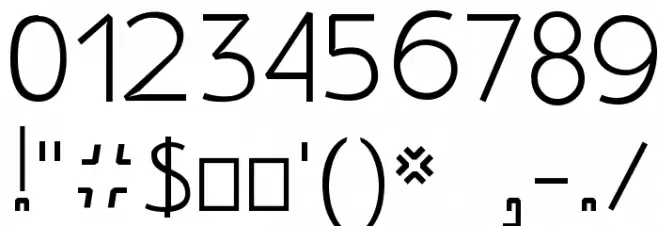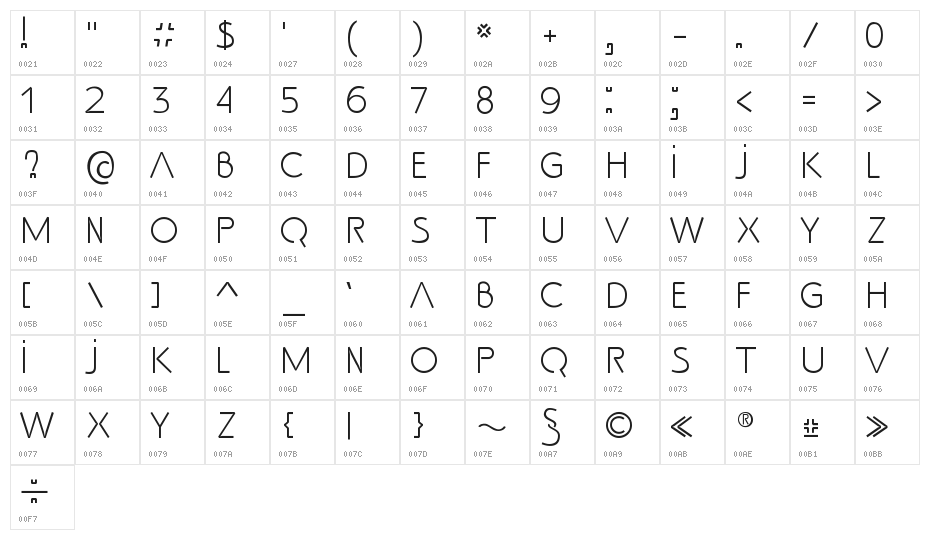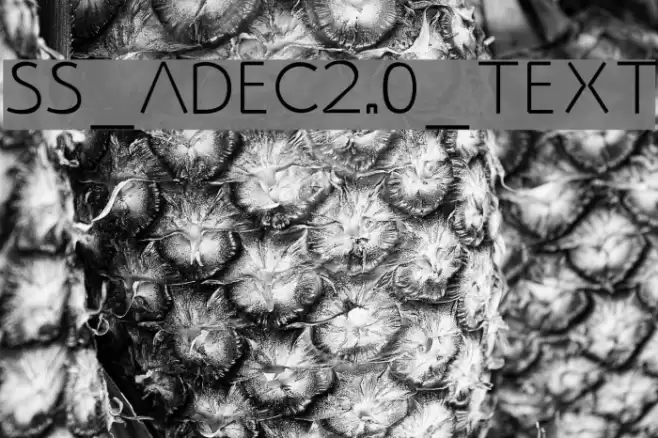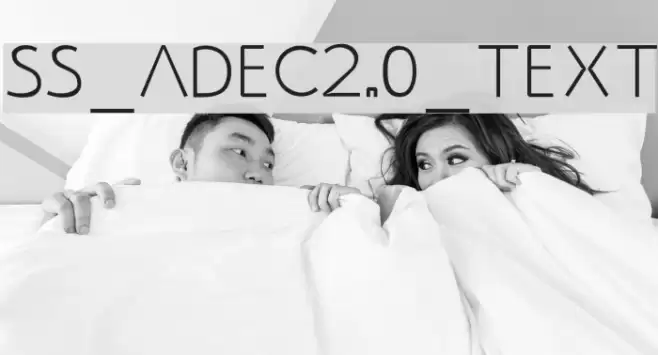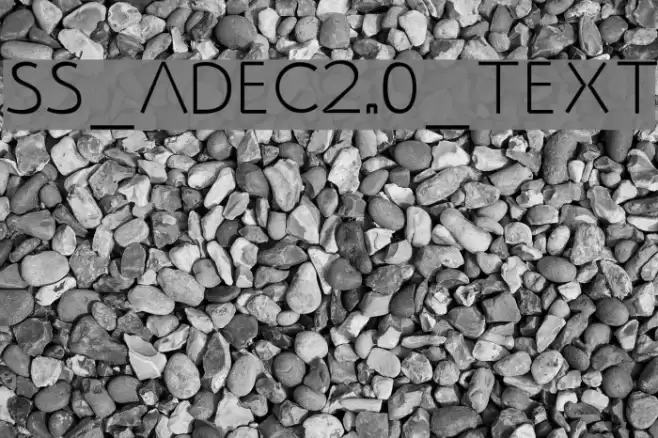
SS_Adec2.0_text Font
SS_Adec2.0_text Description
This font features a clean and modern sans-serif design with geometric influences. The characters are well-proportioned, with a consistent stroke width that gives it a balanced and harmonious appearance. The uppercase letters are bold and striking, while the lowercase letters maintain a similar style, ensuring readability. The numerals are clear and distinct, making them suitable for various applications. The special characters are designed with the same geometric precision, adding to the font's versatility. Overall, this font exudes a contemporary and professional feel, making it ideal for modern design projects.
| Proposed Projects | Ideal for branding, advertising, web design, and editorial layouts. |